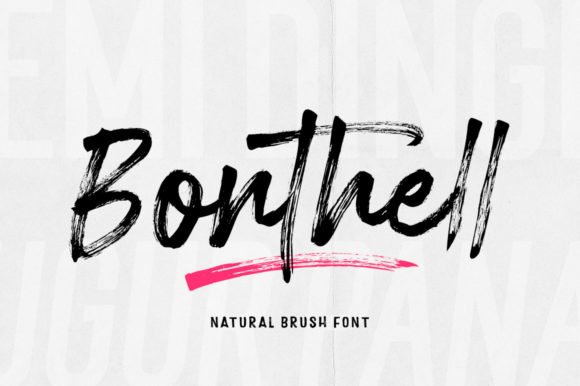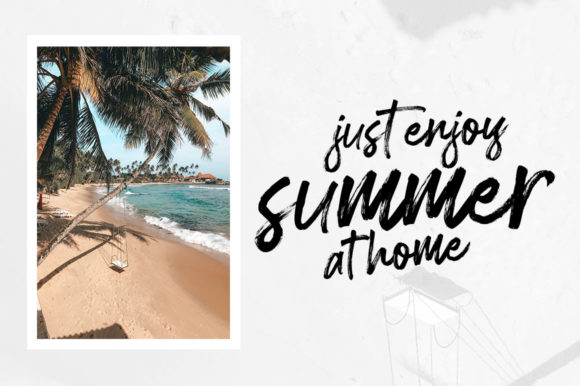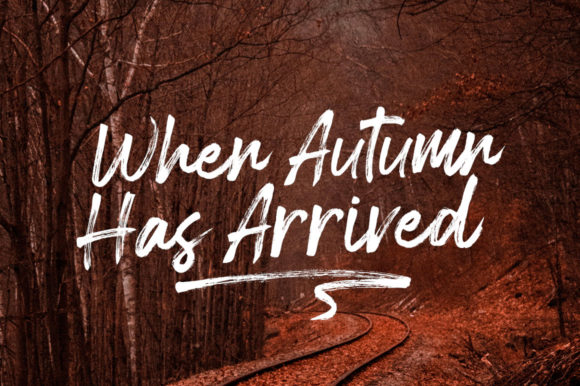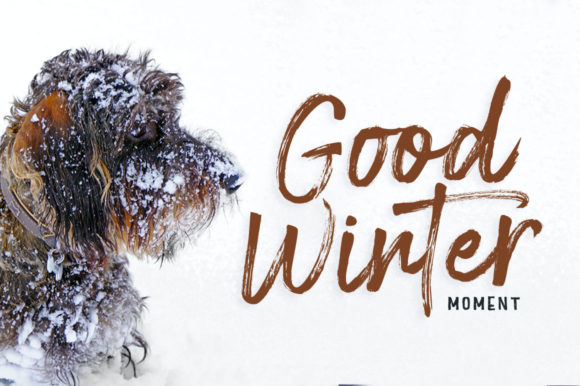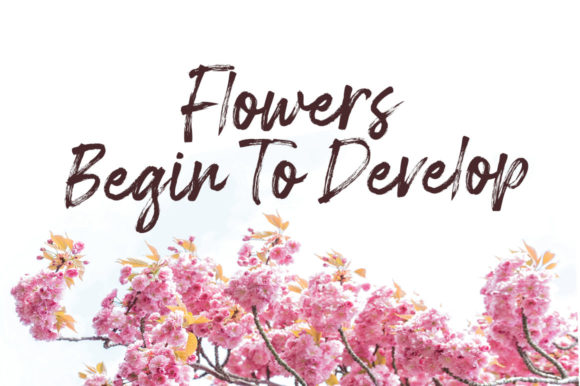
Unleash Your Creativity with the Unique Bonthell Font
Have you ever found yourself staring at a blank page, trying to bring a creative idea to life? The blank space seems to stare back, taunting you with its emptiness. But what if you had the perfect tool to spark your imagination and bring your ideas to the forefront?
Enter the Bonthell Font, a masterfully designed handwritten font that was crafted with the help of a brush pen. This unique font is not just a pretty face – it’s a powerful tool that can elevate your creative projects to new heights. Whether you’re a designer, artist, or writer, the Bonthell Font has the potential to become your new favorite go-to font. Its versatility and character make it a valuable addition to any creative arsenal.
Bonthell Font Key Features
- Unique Characteristics: The font features a unique blend of modern and vintage elements, with a distinctive flair and elegance that sets it apart from other fonts.
Bonthell Font Review
Overall, I was impressed by the unique charm of the Bonthell Font. It has a quirky, hand-drawn feel that can add a lot of personality to your designs. ✨ The varying line widths and subtle imperfections give it a human touch that’s hard to replicate with more traditional fonts. ✨
However, there are a few limitations that might make it less suitable for certain projects. ⚠️ For one, the font can be a bit difficult to read at smaller sizes, and the uneven letterforms can make it harder to achieve consistency in your typography. ⚠️ Additionally, the font’s playful nature can sometimes come across as unprofessional or immature, which may not be ideal for more formal or corporate designs. ⚠️
That being said, I think the Bonthell Font is still a great choice for creative projects, such as illustrations, posters, or social media graphics. Its whimsical charm can add a lot of visual interest and help your designs stand out from the crowd. Just be mindful of its limitations and use it thoughtfully to get the best results.
- Unique, hand-drawn feel
- Varying line widths and subtle imperfections
- Can add personality and visual interest to designs
Bonthell Font: A Practical Application Guide
The Bonthell font is a versatile and stylish typeface suitable for various design projects. To use it, follow these steps:
To get the most out of the Bonthell font, try the following:
- Experiment with different font sizes and styles to create visual hierarchy.
- Combine Bonthell with other fonts for a unique and interesting typography.
- Use Bonthell for headings and titles to create a bold and eye-catching design.
The Bonthell font is suitable for:
- Business cards and stationery.
- Brochures and flyers.
- Logo design and branding.
- Web design and digital marketing materials.
Alternatives to Bonthell Font
Playfair Display is a high-end, elegant serif font suitable for luxury branding, magazine covers, and high-end packaging. It has a classic feel with intricate details, making it a great alternative to Bonthell Font for formal and sophisticated designs.
Comparison to Bonthell Font: While Bonthell Font has a more modern and minimalist feel, Playfair Display is more ornate and traditional, making it better suited for formal and luxurious designs.
Yes, the Bonthell Font is a highly customizable font. You can adjust its weight, style, and spacing to suit your design requirements. Additionally, you can also use font editing software to modify the font’s glyph set and add custom characters.
Does the Bonthell Font support languages other than English?
Yes, the Bonthell Font supports a wide range of languages, including Latin, Cyrillic, Greek, and many others. The font includes a comprehensive glyph set that covers most languages, making it an ideal choice for multilingual designs.